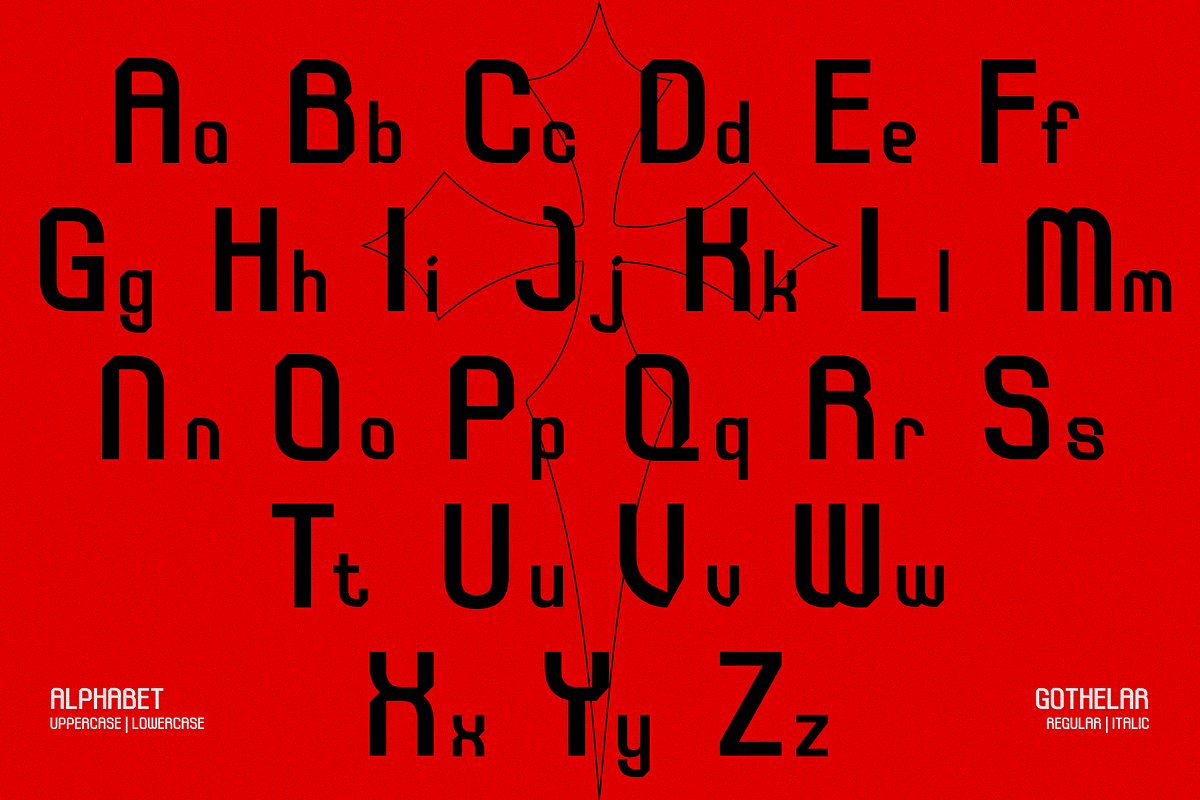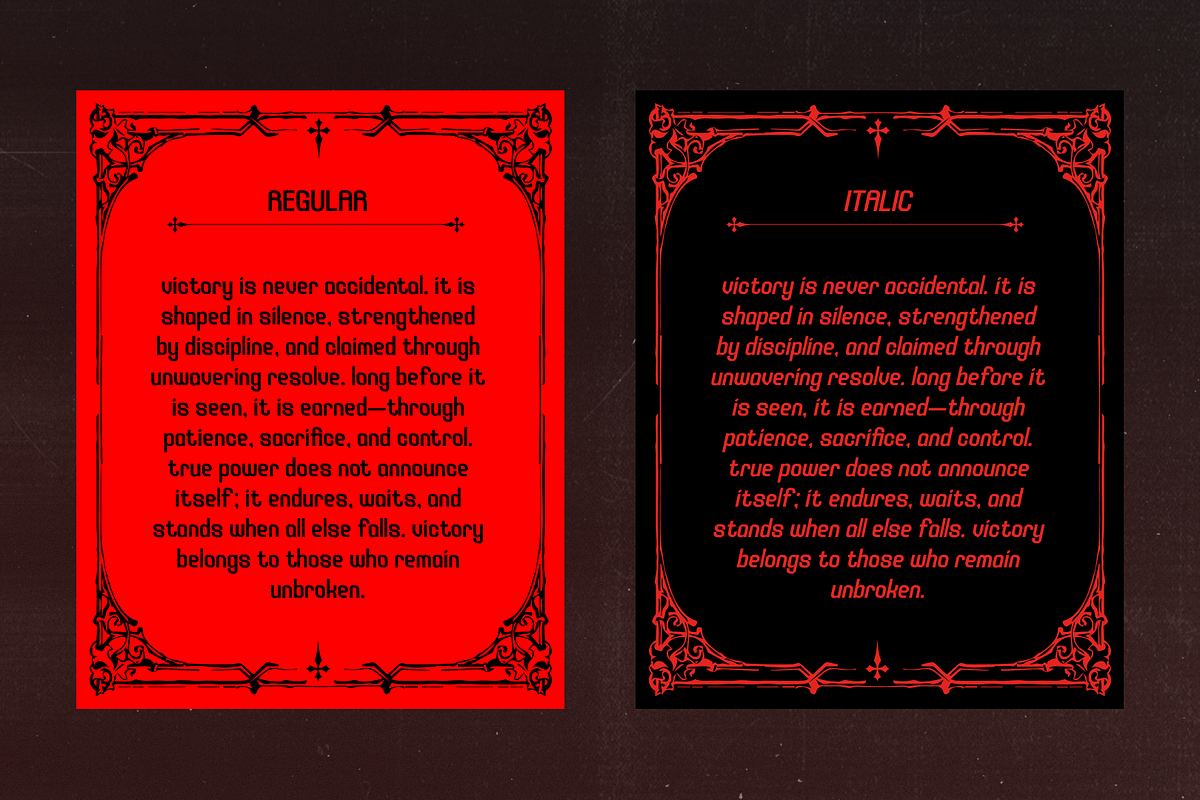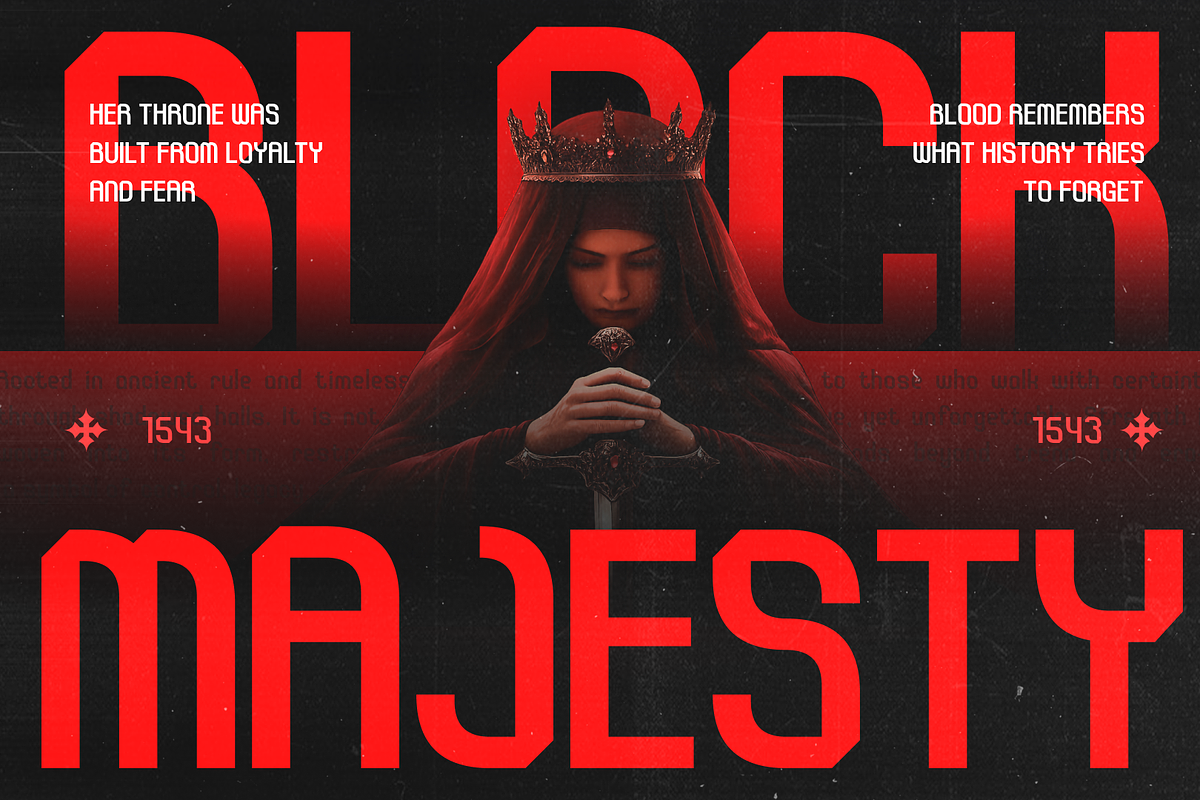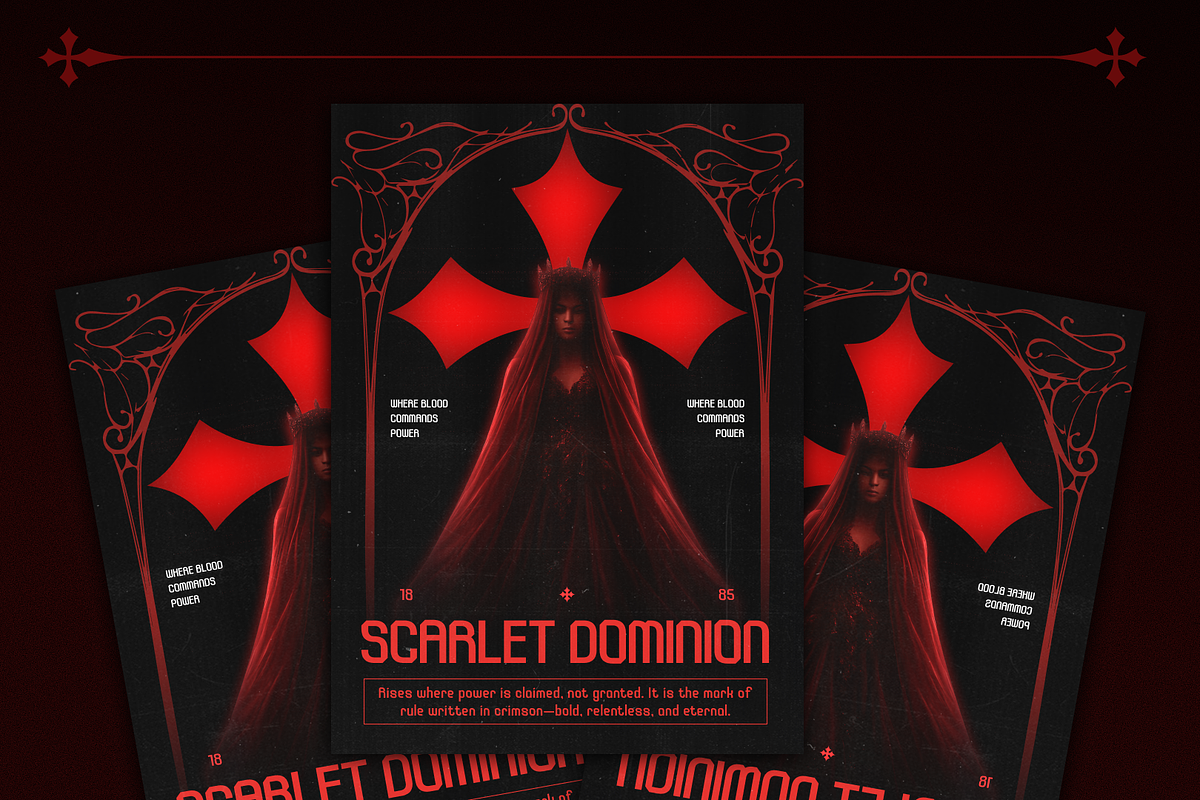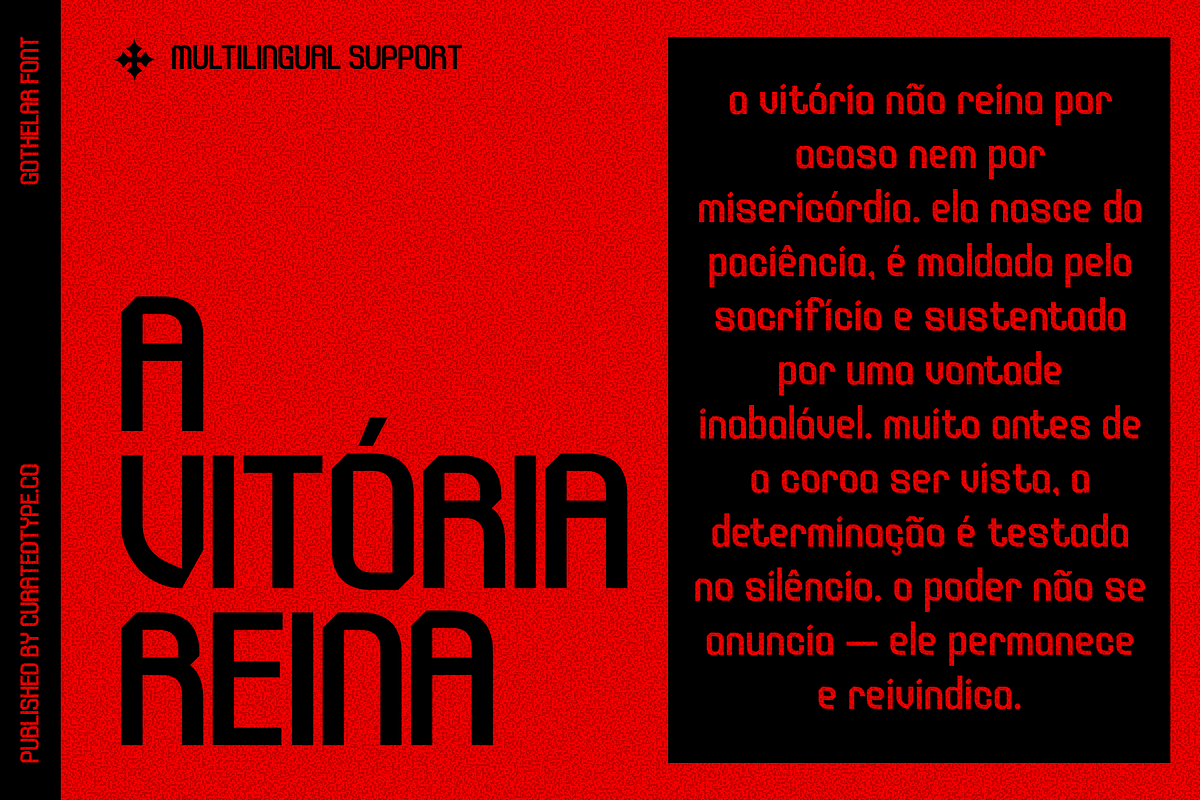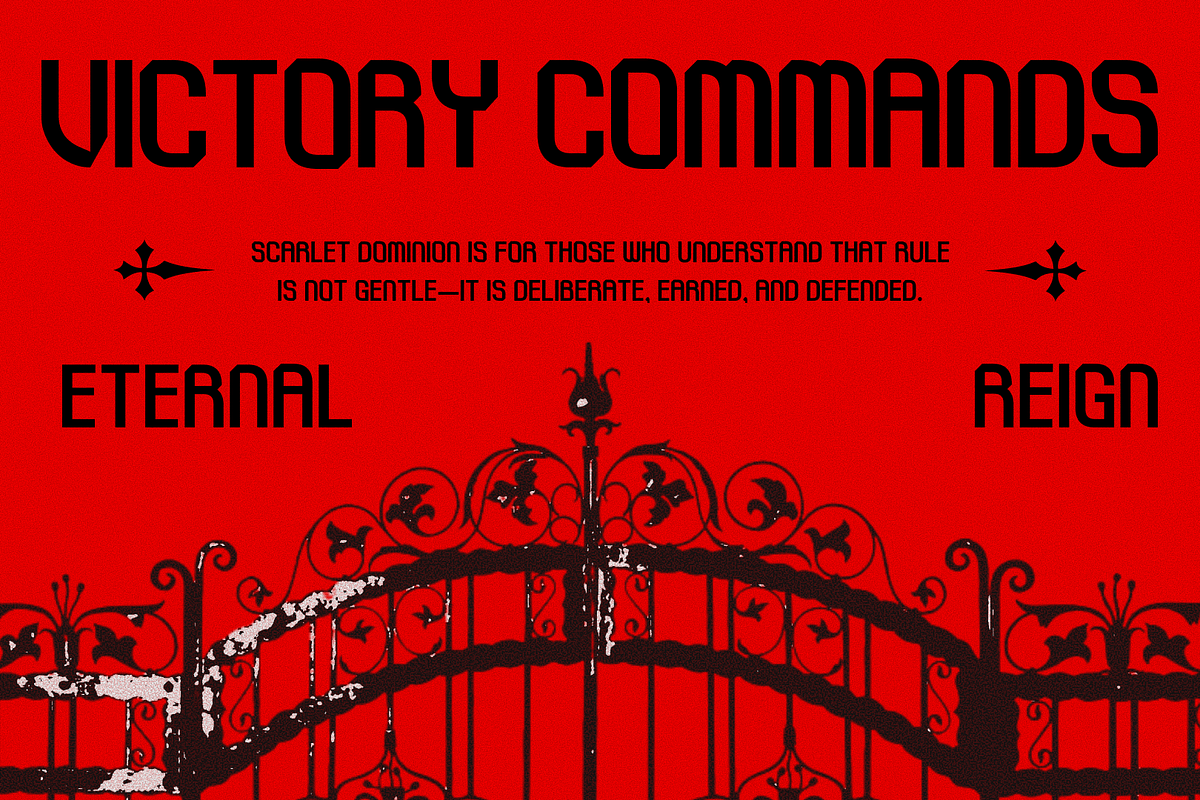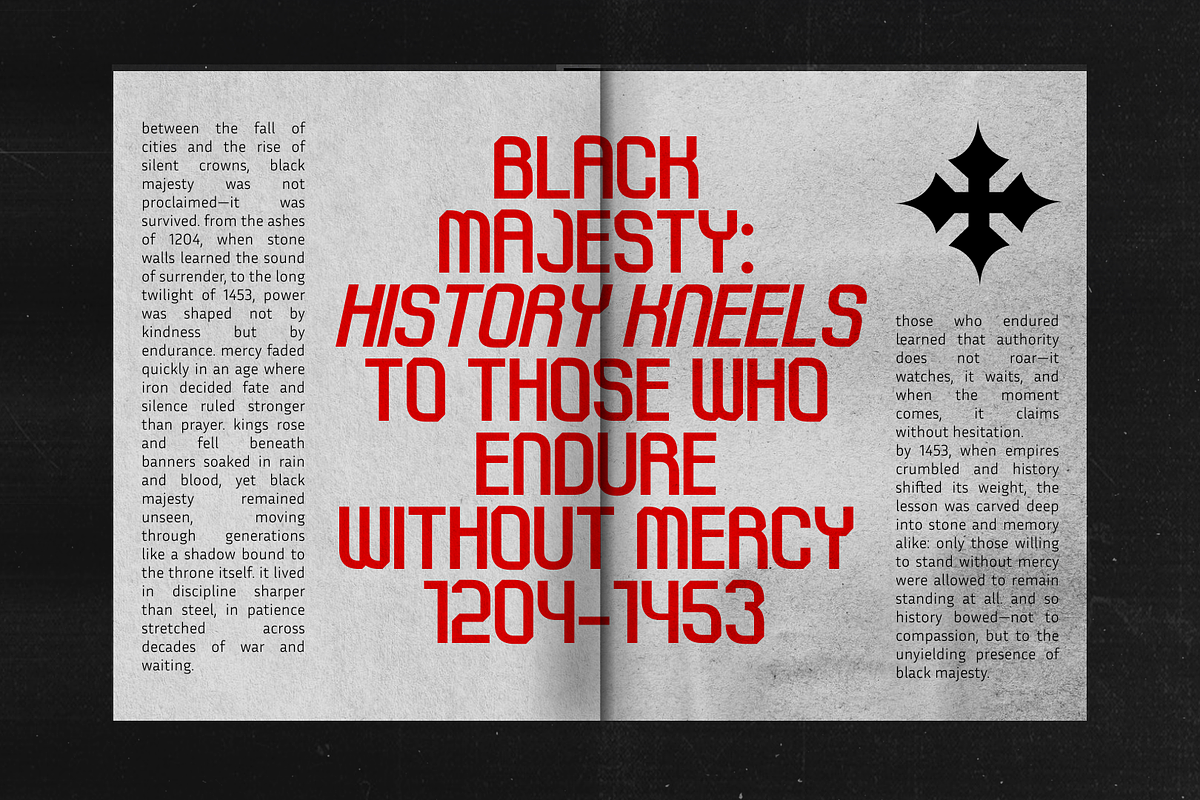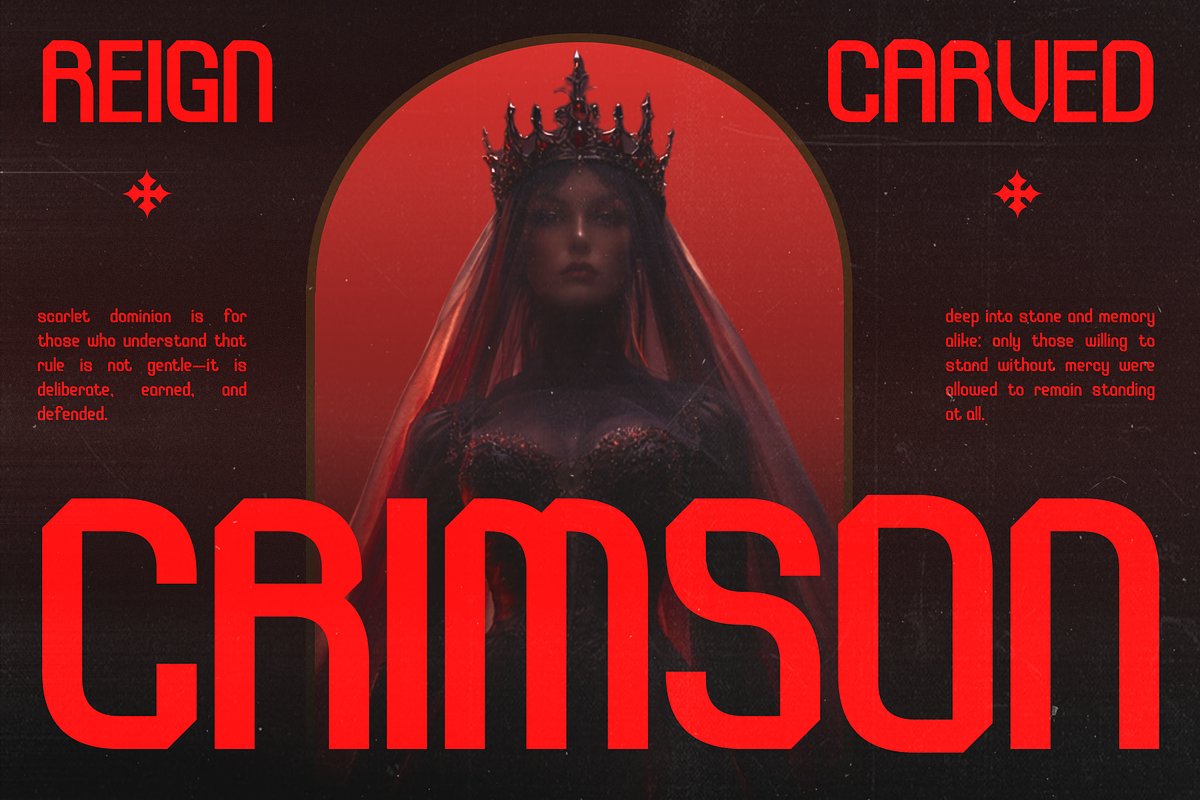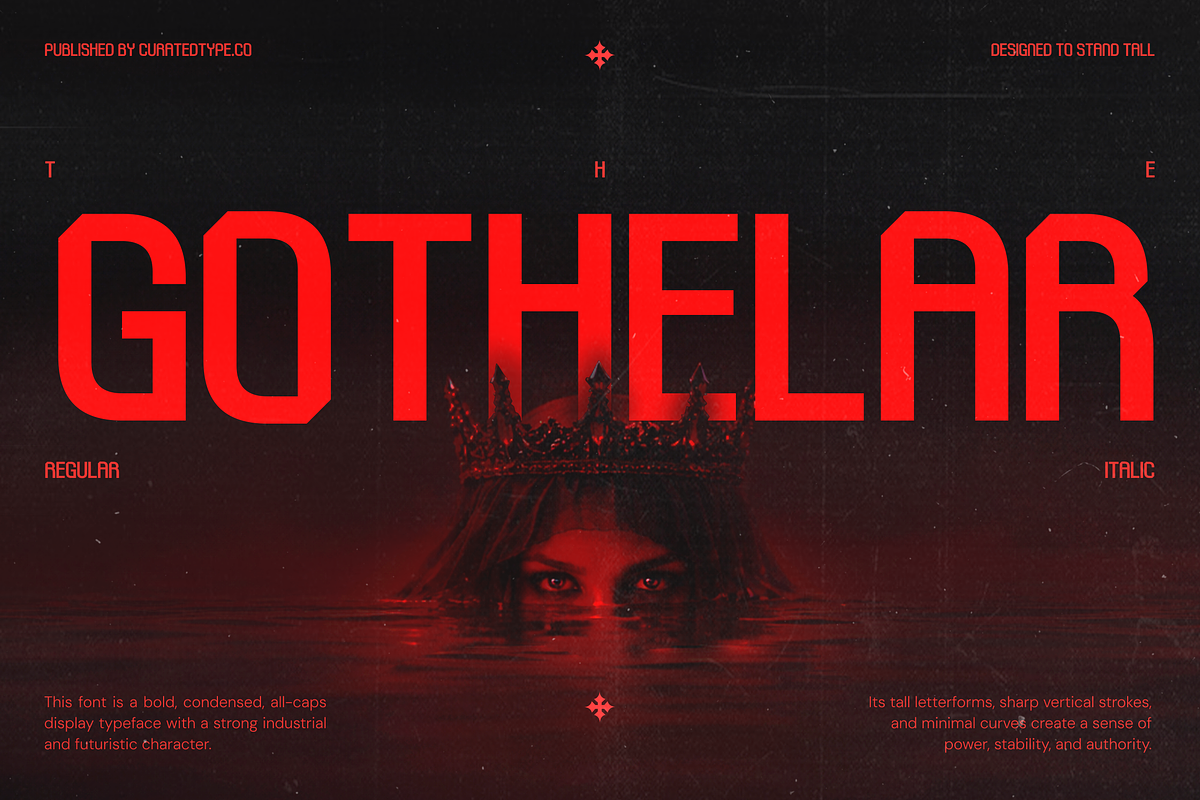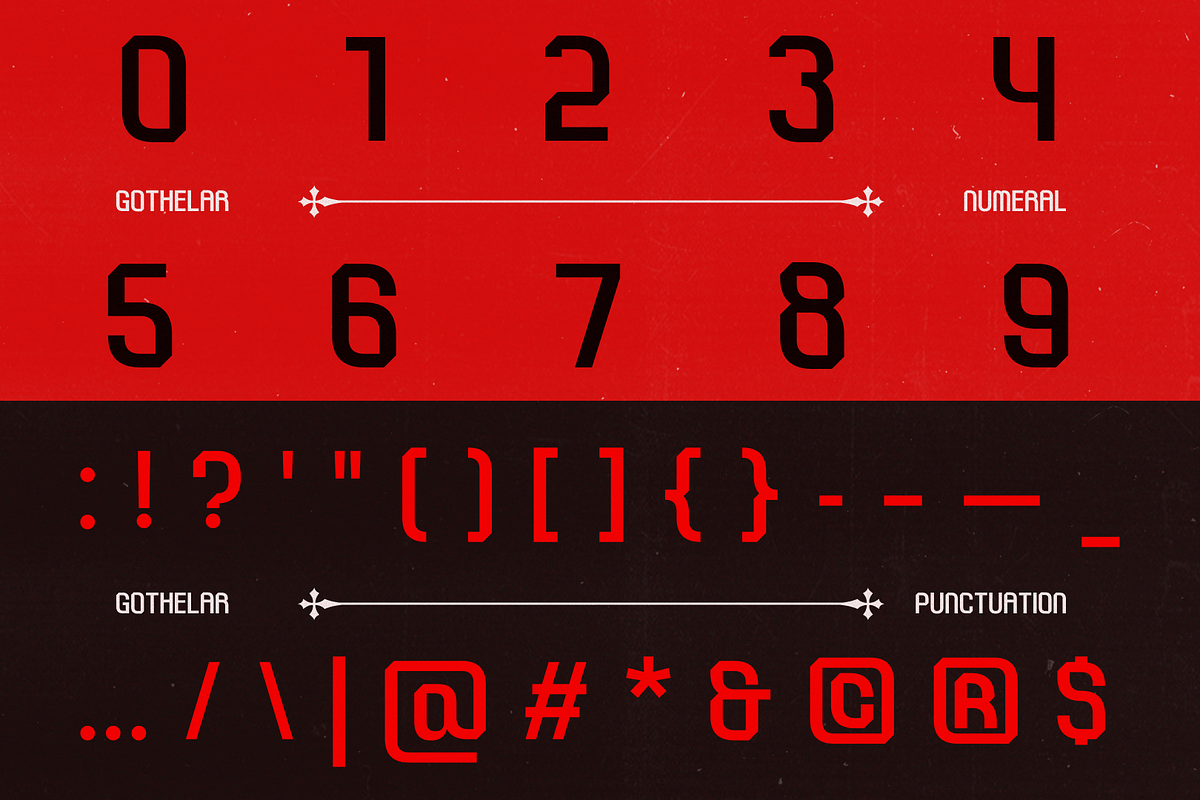
Gothelar
Gothelar is more than just a font; it is a structural statement for the digital age. Drawing inspiration from classic industrial typography and modern sci-fi aesthetics, this modular sans-serif is engineered for maximum impact. Its sharply chamfered corners and block-like silhouette create a visual language that is both incredibly sturdy and undeniably futuristic. Whether you are designing for the fast-paced world of esports, crafting a visual identity for a tech startup, or laying out a sleek modern editorial, Gothelar provides the geometric precision needed to stand out.
Versatility meets mechanics in this display typeface. While it thrives in large-scale headers and logos where its unique architecture can shine, Gothelar remains surprisingly legible in shorter blocks of text thanks to its careful balancing of negative space. It is the perfect tool for designers looking to inject a sense of "tech-savvy" authority into their work. From automotive branding to digital game interfaces, Gothelar brings a constructed, professional edge to any creative project.
- 2 Styles Font : Regular, Italic
- Standard letter A-Z and a-z
- Numeral, Symbol, and Punctuations
- OpenType Feature
- Over 500 glyphs